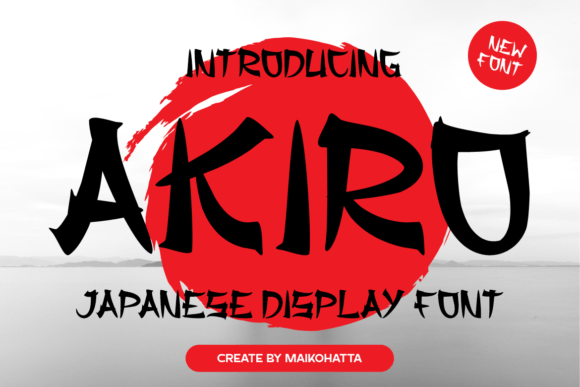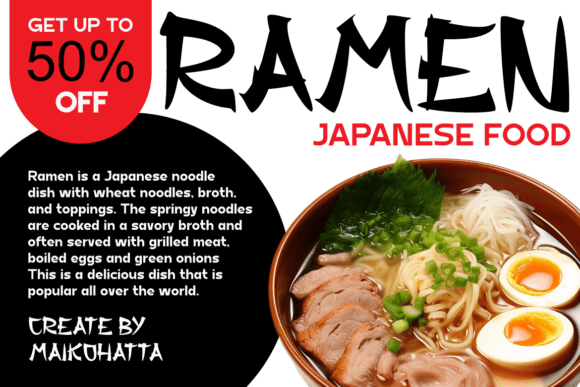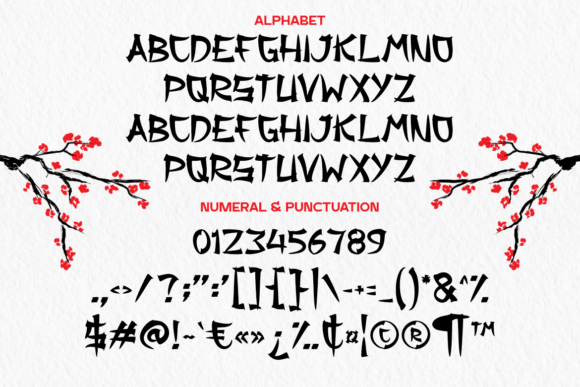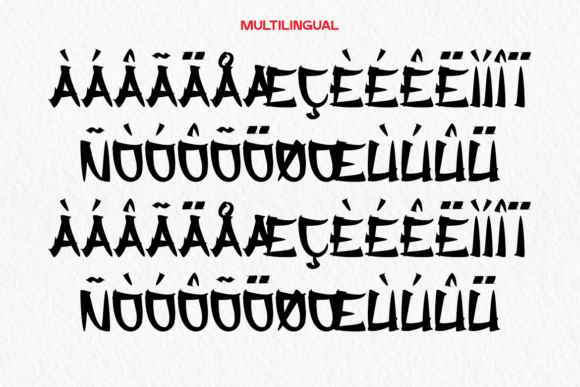
Akiro Font: Bold Japanese Display Font for Eye-Catching Design
About the Akiro Font
Welcome to the world of Akiro Font, a typeface that will inspire your next great project. This font is a combination of beautiful aesthetics, rich cultural history, and versatility in various design contexts. This makes Japanese fonts popular in written communication, both in print and digital media, with the ability to create a unique and captivating impression.
Akiro’s elegant yet bold strokes make it ideal for headlines, branding projects requiring a sophisticated yet memorable logo, and short-form content like posters or packaging. Its strong verticality lends itself well to conveying authority and prestige. However, its detailed forms are less suited to body text or UI elements where high legibility at small sizes is crucial. Long paragraphs set in Akiro would likely strain readability.
Pairing Akiro successfully depends on the desired emphasis. For a modern, clean aesthetic, consider pairing it with a geometric sans-serif like Futura or a minimalist serif such as Garamond. To soften its boldness and introduce a touch of playfulness, a rounded sans-serif like Gill Sans or a script font with delicate flourishes would be effective.
Akiro projects an air of refined confidence. Brands seeking to communicate luxury, heritage, or a sense of established quality would find it particularly appropriate. It is a versatile font, but careful consideration of context and pairing ensures optimal impact.
Akiro Font Usage Examples
Akiro Font Example